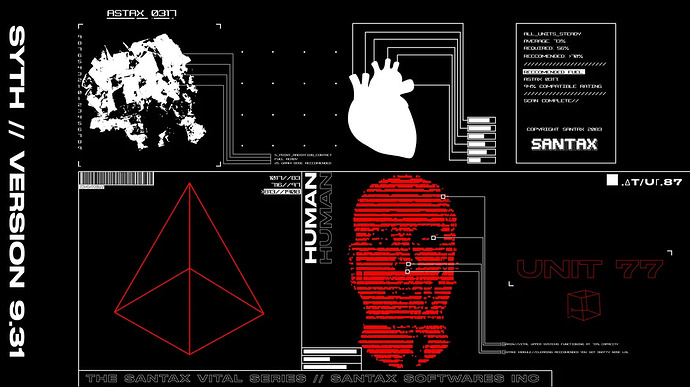
wait the font is hollow in the picture. so this like the filled version of it
It’s done by adding a stroke to the text with the red color and just making the text body either invisible or the same color as the background.
Like so: